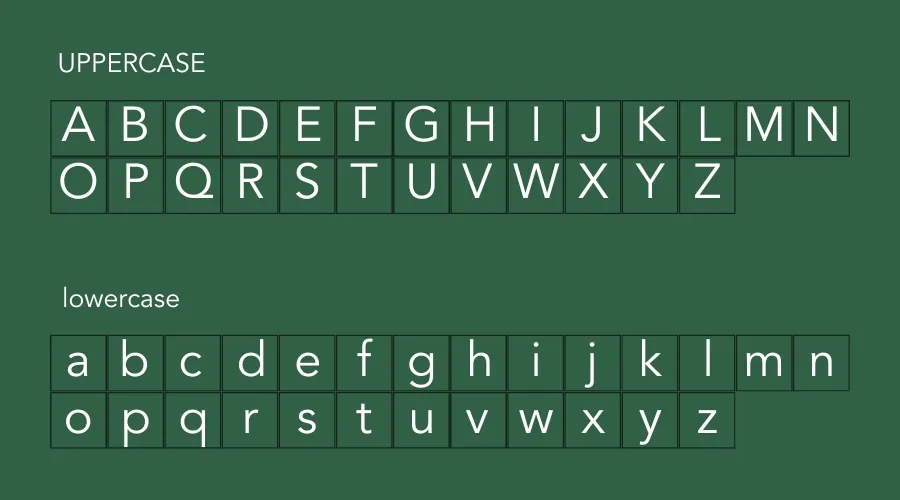
About Avenir Lt Std 45 Book Font
Adrian Frutiger designed Avenir Lt Std 45 Book Font which is a sans serif text style. This typeface is a great choice for those who are searching for a classic textual style. It is extremely simple and clear, indeed in little sizes.
This typeface moreover has both lowercase characters and capitalized characters, as well as a huge number of strings. This typeface is best for body content, headings, and captions. It can moreover be utilized for little amounts of content.
Many creators pair this typeface with helvetica font in arrange to improve the excellence of the extended plan. It supports all of the official languages and also features special characters. A typeface is a fantastic option for print and web design.